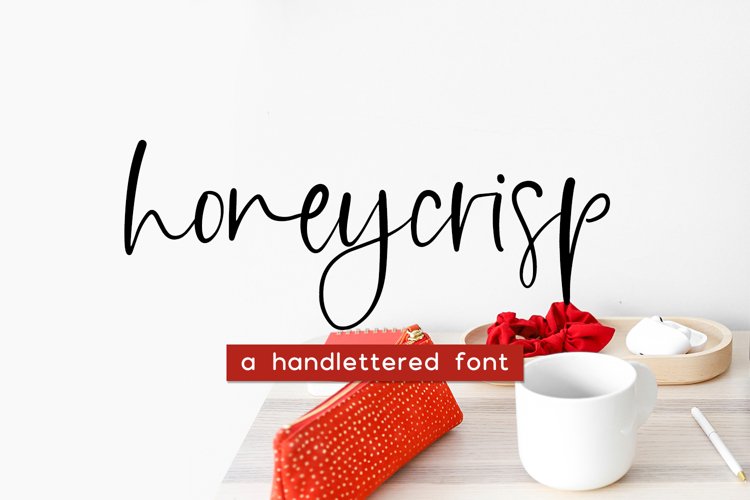
Honeycrisp Script
Introducing Honeycrisp Script, a feminine signature font. This stylish font features a handwritten, casual look and includes a full set of lowercase alternates.
Honeycrisp Script is best for:
- website design + website accents - think design blogs, travel blogs, fashion blogs, & more
Honeycrisp includes:
- 26 lowercase alternates